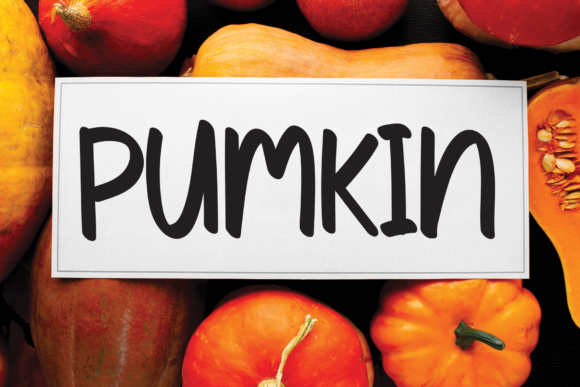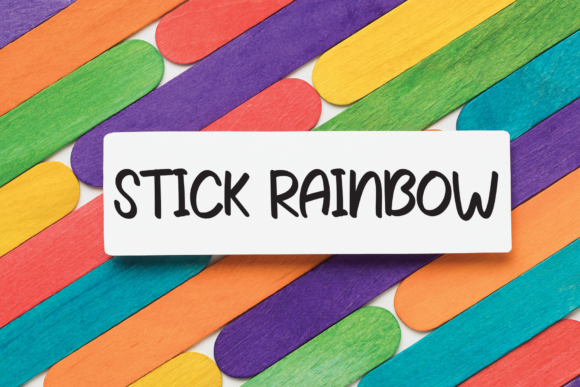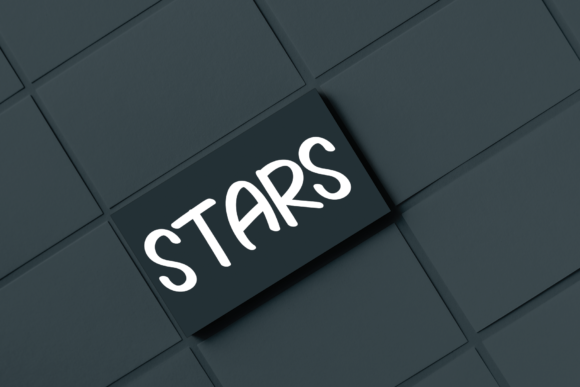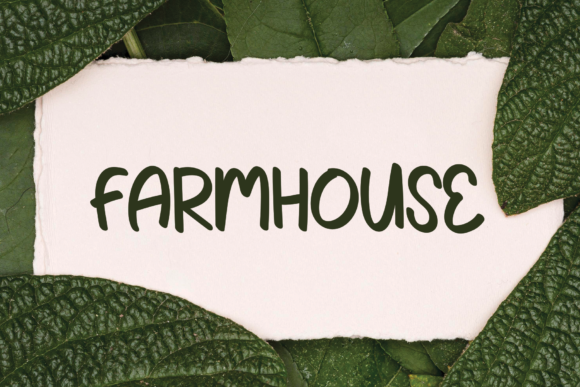
The Perfect Catch: Unleashing the Power of Fishing Font
Have you ever been stuck in a creative rut, struggling to find the right words to express your vision? Maybe it’s a late night brainstorming session, or a last-minute design deadline. Whatever the case, I’m sure you’ve felt the frustration of trying to convey your idea through the wrong font. But what if I told you there’s a way to reel in your audience with a single, stylish stroke?
Enter Fishing Font, a relaxed and adaptable handwritten font that’s perfect for any topic. With its effortless charm and subtle trendiness, Fishing Font is the ultimate catch for designers looking to add a personal touch to their projects. Whether you’re crafting a blog post, designing a brochure, or creating a social media campaign, Fishing Font is the perfect companion to help you hook your audience and leave a lasting impression.
Fishing Font Key Features
- Font Family: Fishing Font is a unique, hand-drawn font designed for fishing-related themes, advertisements, and promotional materials.
- Character Count: The font family includes over 600 glyphs, including uppercase and lowercase letters, numbers, punctuation marks, and special characters.
- Size and Resolution: The font is optimized for display at any resolution and size, making it suitable for use in various design projects, from small logos to large billboards.
- Unique Characteristics: The font’s hand-drawn design and fishing-themed elements, such as fishing rods, nets, and fish, add a touch of whimsy and personality to any design project.
Fishing Font Review
I recently had the chance to dive into the world of Fishing Font, and I must say it’s an interesting find. ✨ The font’s primary strength lies in its uniqueness. It’s not a standard, run-of-the-mill font you see everywhere. The creator has put in a lot of effort to craft a design that truly stands out.
Here are some of the key features that work well for Fishing Font:
- ✨ Unique design: As mentioned earlier, the font’s design is unlike any other. It’s a refreshing change from the usual sans-serif or serif fonts.
- ✨ Customizability: Fishing Font offers a range of styles and weights, making it suitable for various design projects.
- ⚠️ Steep learning curve: The font’s unique design can make it challenging to use, especially for beginners.
Overall, I’d say Fishing Font is a great choice for designers who want to add a touch of personality to their projects. While it may have some limitations, the font’s uniqueness and customizability make it well worth exploring.
Tips for Getting the Most Out of Fishing Font
Use Fishing Font to create eye-catching titles, headings, and labels in your designs. Experiment with different font sizes, colors, and styles to add visual interest.
Fishing Font is perfect for:
- Outdoor and fishing-themed designs
- Water sports and recreation designs
- Travel and adventure designs
Q: What is the technical specification of Fishing Font, and what are its key features?
Fishing Font is a TrueType font with a comprehensive character set, including uppercase and lowercase letters, numbers, and punctuation marks. It also includes a range of OpenType features, such as ligatures and swashes, to enhance its visual appeal. The font is optimized for use at font sizes ranging from 12 to 72 points, making it suitable for a wide range of design applications.